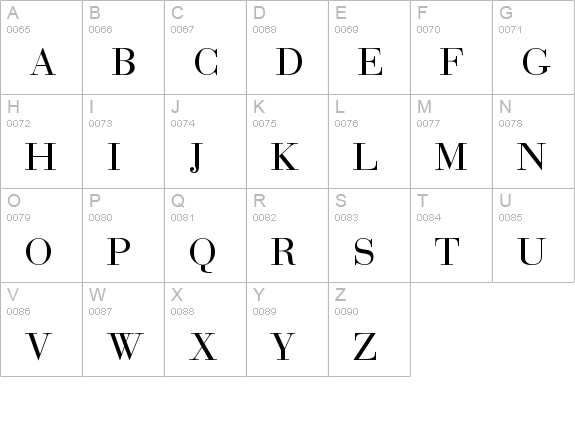
BauerBodoniEF-Regular Font Details
BauerBodoniEF-Regular is the standard, neutral variant in the BauerBodoniEF typeface family \xE2\x80\x94 well suited to general body text, paragraphs, and standard typographic work.
BauerBodoniEF-Regular font is a timeless and elegant typeface that exudes sophistication and charm. Its classic serifs and clean lines make it perfect for adding a touch of refinement to any design project. Whether you're working on a formal invitation, a stylish logo, or a professional document, BauerBodoniEF-Regular font is sure to elevate your work to the next level. The best part? BauerBodoniEF-Regular font is available for free download at FontsMarket.com. This means you can access this exquisite typeface without any cost, making it a valuable addition to your font library. Don't miss out on the opportunity to enhance your designs with the beauty and versatility of BauerBodoniEF-Regular font. Download it today and start creating stunning visuals that truly stand out.